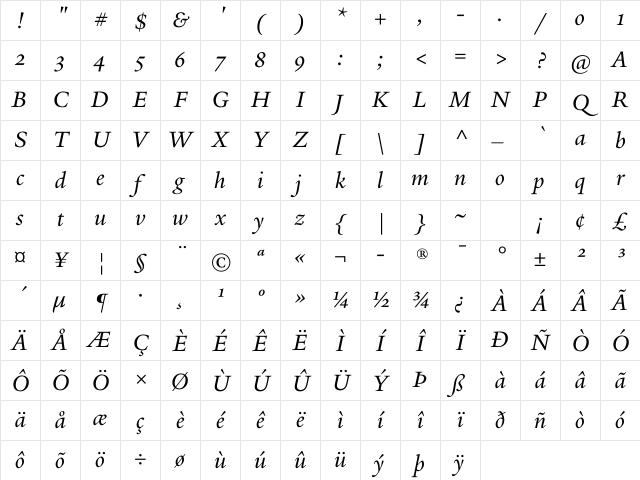
YaleCFF Italic
Design Context for YaleCFF
YaleCFF is a composed and adaptable typeface that performs quietly and consistently across a wide range of design contexts. The slanted form adds forward momentum and visual energy.